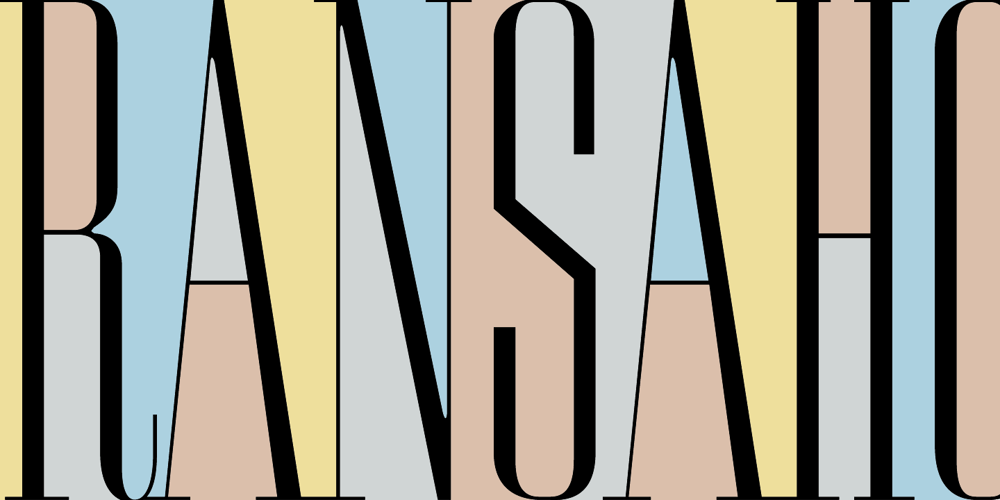
Ransahoff CT
Ransahoff CT font
Ransahoff CT Font Family was designed by Jason Castle and published by CastleType. Ransahoff CT contains 1 styles and family package options. A very light, elegant, condensed typeface, which must be used very large (at least 100 points).